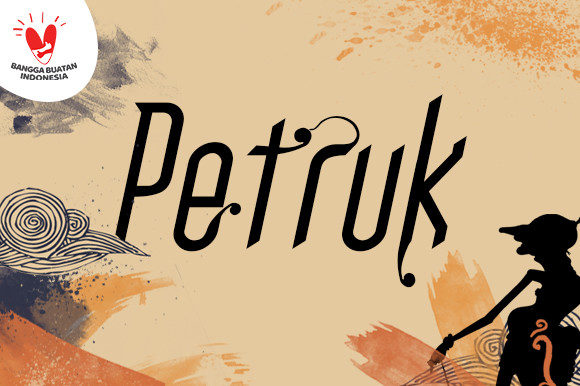
**Introducing Petruk: The Font that Brings Java Coding to Life**
In the realm of digital creation, where ideas take shape and dreams become reality, there exists a font that transcends the boundaries of ordinary typefaces. Enter Petruk, a display font that unravels a world of possibilities for Java programmers and creative minds alike.
**Embrace the Power of Distinction**
Petruk's essence lies in its captivating letterforms, meticulously crafted to stand out from the crowd. Each character dances upon the screen, boasting a unique personality that breathes life into your code and designs. Its bold presence commands attention, making it an ideal choice for headlines, logos, and any project craving a touch of individuality.
**Unleash Your Coding Creativity**
For Java programmers, Petruk is not merely a font; it's an extension of their creative vision. Its clean lines and sharp angles mirror the precision and elegance of Java code, allowing you to craft visually stunning interfaces and applications that captivate users. Whether you're building websites, mobile apps, or desktop software, Petruk empowers you to evoke a sense of professionalism and sophistication.
**Ignite Your Imagination**
Beyond the realm of programming, Petruk's versatility extends to a myriad of creative endeavors. Its distinct character adds a touch of whimsy to invitations, posters, and social media posts. Whether you're a graphic designer seeking to create eye-catching visuals or an artist exploring new frontiers, Petruk's unique charm will ignite your imagination and inspire you to push the boundaries of design.
**Experience the Petruk Advantage**
- Dive into a world of exceptional typography with Petruk's captivating letterforms.
- Let your Java code shine with a font designed to enhance readability and visual appeal.
- Unleash your creativity in countless projects, from web design to social media graphics.